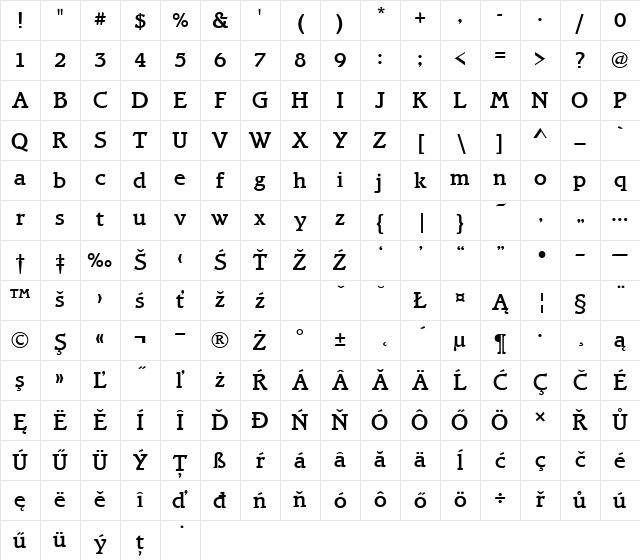
BramlTEEMed Regular
Design Context for BramlTEEMed
BramlTEEMed is a composed and adaptable typeface that performs quietly and consistently across a wide range of design contexts.
Pro Tip: Use BramlTEEMed in both headline and body roles to test its range before committing to a single application.